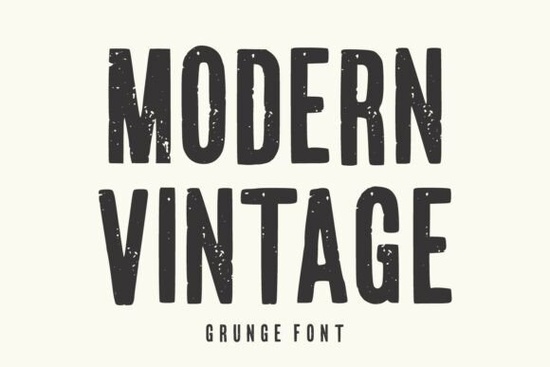
When you need a typeface that feels both nostalgic and edgy, the Modern Vintage Font offers a great solution. This distressed display font mixes classic retro lettering with a rugged, worn texture. It gives your projects a raw, handcrafted look without sacrificing readability. Whether you are designing a t-shirt for a print-on-demand shop or creating a logo for a local coffee shop, this typeface brings instant character to your work.
How does the distressed texture affect readability?
One of the biggest concerns when using grunge typography is whether the text will still be easy to read. This specific typeface solves that problem by using tall, condensed letterforms. The heavy weight of the letters provides a solid base, while the authentic worn details are applied carefully so they do not break apart the core shapes.
Because of this balance, it works beautifully for large headlines and short display text. If you try to use it for long paragraphs or tiny body text, the distressed edges will blur together. For projects that require tall, structured letters but need a cleaner finish, you might also appreciate the structured look of varsity narrow styles for sports or collegiate themes.
What types of projects work best with grunge typography?
This font shines in applications where you want to convey a sense of history, toughness, or raw authenticity. It is highly effective for:
- Streetwear apparel: The rugged texture pairs perfectly with urban clothing brands and edgy graphic tees.
- Music and entertainment: It makes a strong impact on album covers, concert posters, and band merchandise.
- Rustic packaging: Ideal for craft beer labels, barbecue sauce bottles, or artisanal product tags.
When designing rustic food packaging or diner menus, pairing it with a playful option like the the pickles house display font can create a fun, eclectic vibe that still feels homemade. On the other hand, if you are making memory scrapbooks or nostalgic photo albums, a softer retro option like the remember things display typeface works beautifully alongside heavier grunge text to balance the visual weight.
Can I use this font for small business branding?
Absolutely, but it is important to match the font to your brand personality. This typeface is perfect for businesses that want to appear bold, established, or slightly rebellious. Think barbershops, craft breweries, vintage clothing stores, and outdoor gear companies.
However, it might not be the right choice for every niche. While this font is perfect for edgy streetwear, you might want a more upbeat, friendly typeface for a children's brand, such as the awesome everybody display font. Similarly, for elegant vintage wedding invites or high-end boutique branding, a script duo like the selina daniel duo is usually a better fit than a heavy distressed typeface.
What are the best settings for printing distressed fonts?
When sending your designs to a printer or using a print-on-demand service, the way you handle the texture matters. Here are a few practical tips to ensure your final product looks exactly like your screen design:
- Keep the scale large: Always use this font for headings or large graphics. Shrinking it down will cause the distressed gaps to fill in with ink.
- Use high contrast: Print white or light-colored text on a dark background, or dark text on a light background. Low contrast will make the worn details disappear.
- Avoid overprinting: If your design software allows it, set the text to overprint carefully, or ensure your background color is solid enough to let the texture show through clearly.
Quick Checklist for Your Next Design
Before you finalize your project, run through this short checklist to make sure your typography choices are working effectively:
- Check the text size to ensure the distressed edges are clearly visible and not muddy.
- Verify that the font style matches the emotional tone of your brand or project.
- Pair the heavy display text with a simple, clean sans-serif for any necessary subheadings or body copy.
- Export your file in the correct color mode (CMYK for print, RGB for digital) to preserve the texture details.